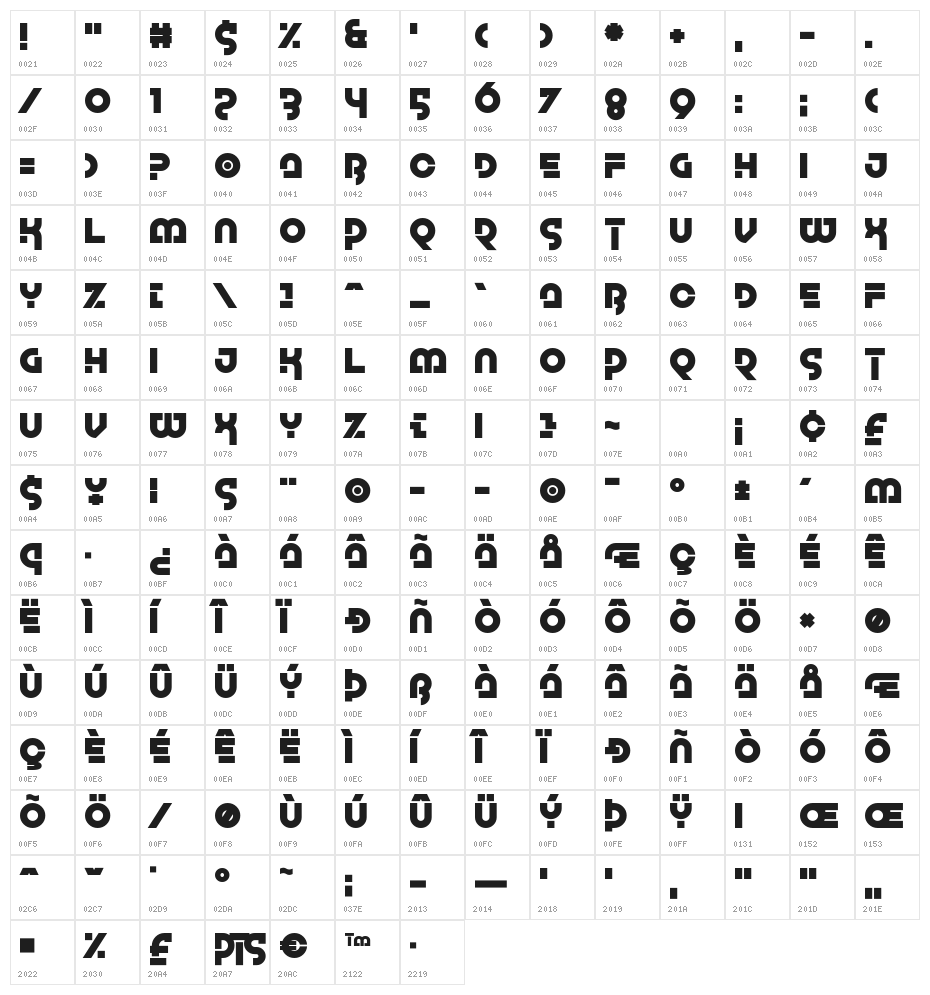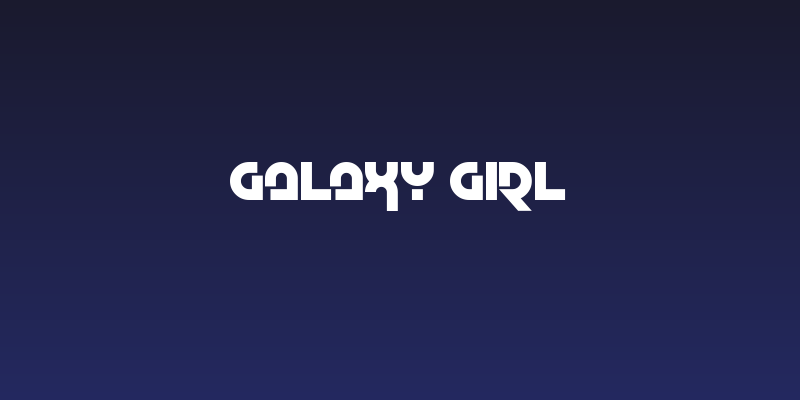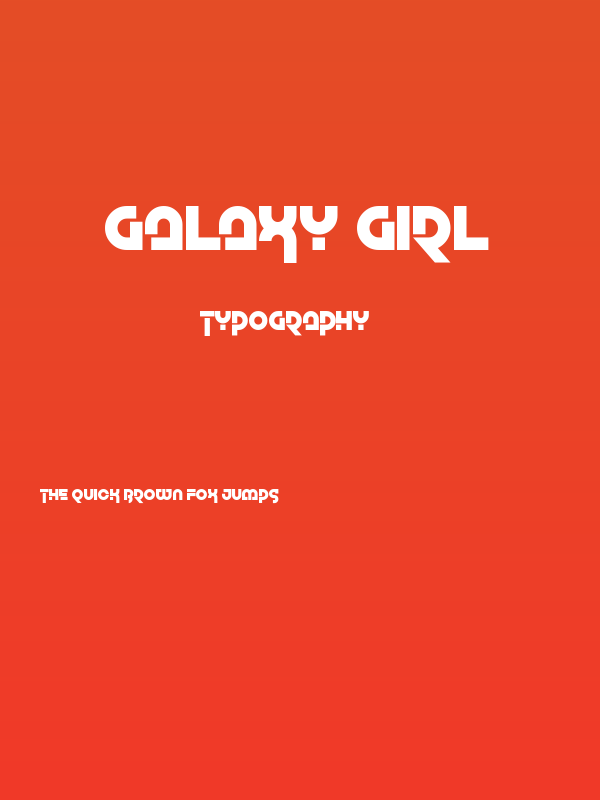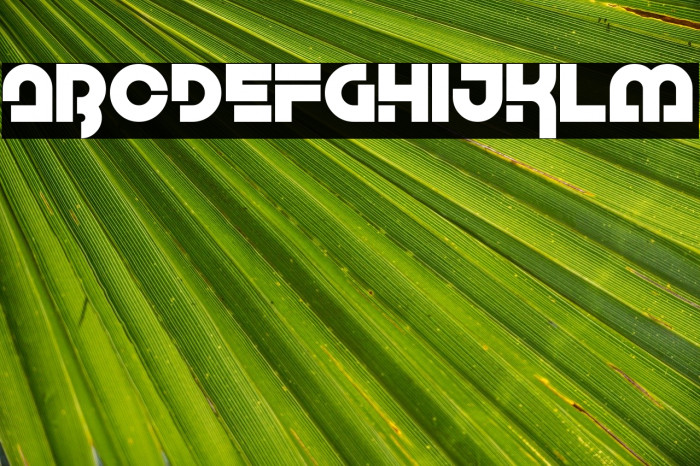
Galaxy Girl Font
Galaxy Girl Description
This font features a bold and futuristic design with geometric shapes and sharp angles. The characters are constructed with a strong emphasis on symmetry and balance, creating a cohesive and modern look. The uppercase letters are particularly striking, with unique cutouts and angular forms that give the font a distinct, space-age aesthetic. The lowercase letters maintain the same geometric style, ensuring consistency across the typeface. Numbers and special characters are designed to match the boldness and angularity of the letters, making this font highly versatile for various design applications. Its strong visual impact makes it ideal for projects that require a modern and dynamic appearance.
| Proposed Projects | Ideal for sci-fi themed posters, technology branding, video game titles, and futuristic product packaging. |